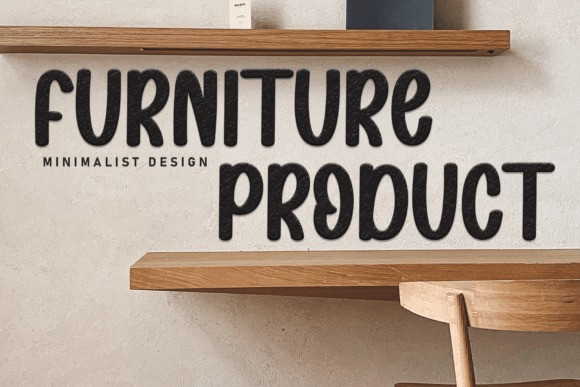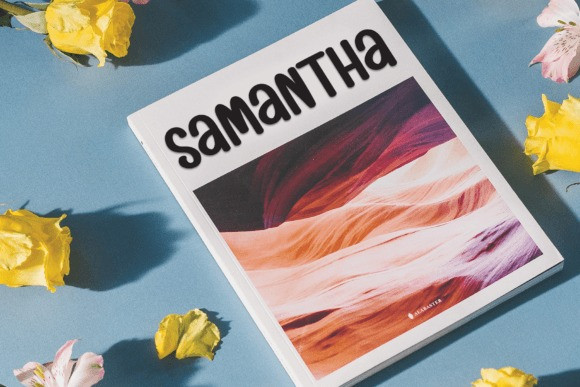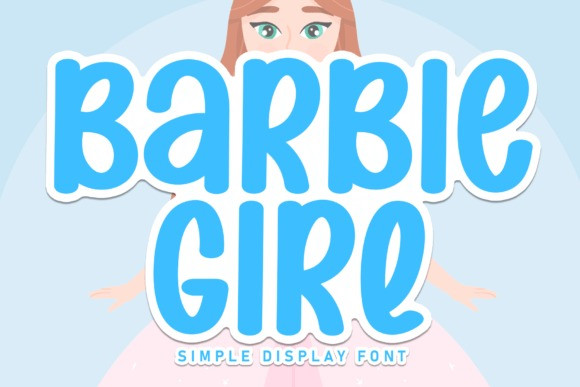
Barbie Girl Font
Barbie Girl Font, special creative products for you, our products will give you an extraordinary experience. the latest style letters are perfect for wall displays, wedding invitations, social media post logos, advertisements, product packaging, product designs, labels, photography, watermarks, invitations, stationery, and any project that requires taste handwriting.